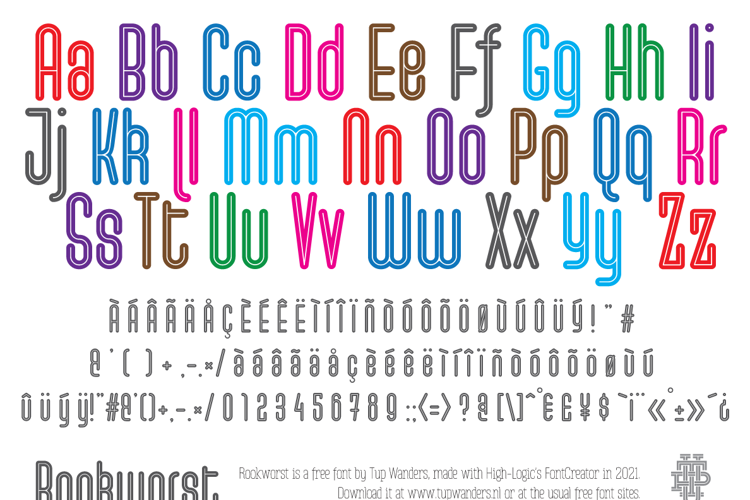
Rookworst Font
About Rookworst Font
This one started when I was playing a city building game and started making letters using its road texture. It's a bit sausagey as well :)